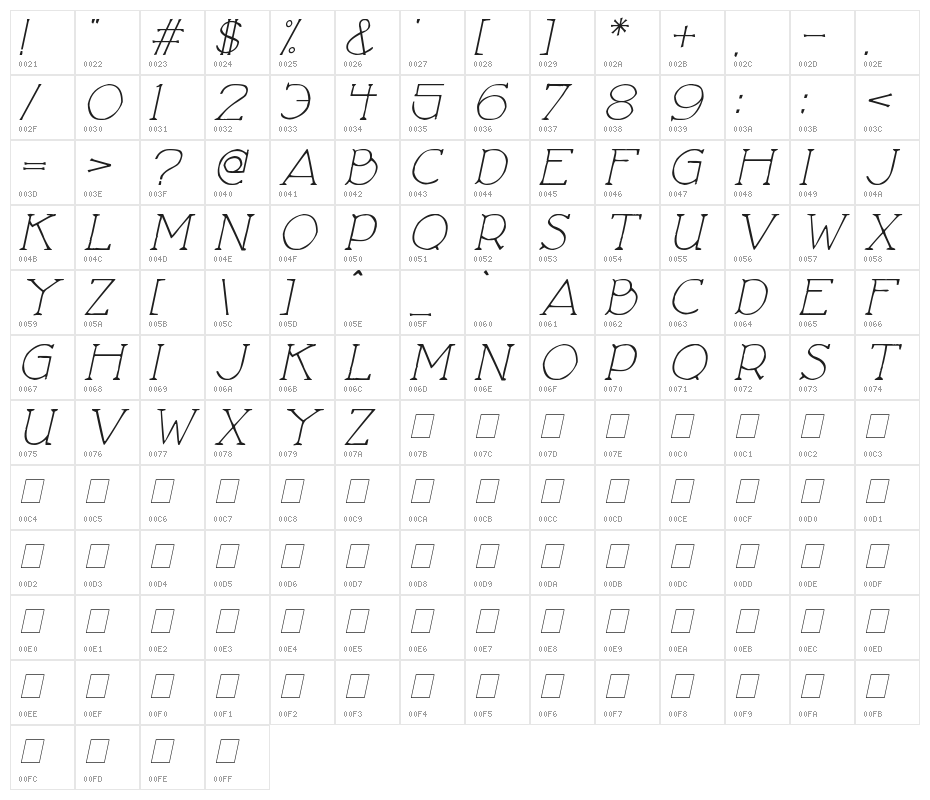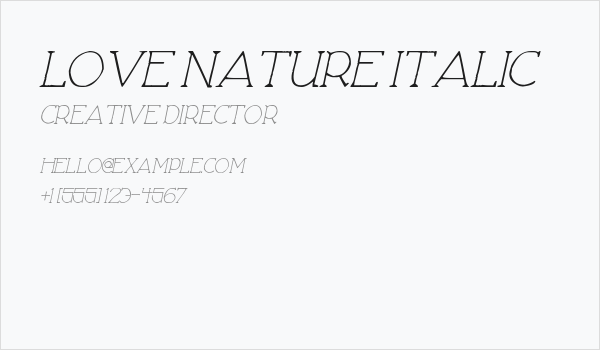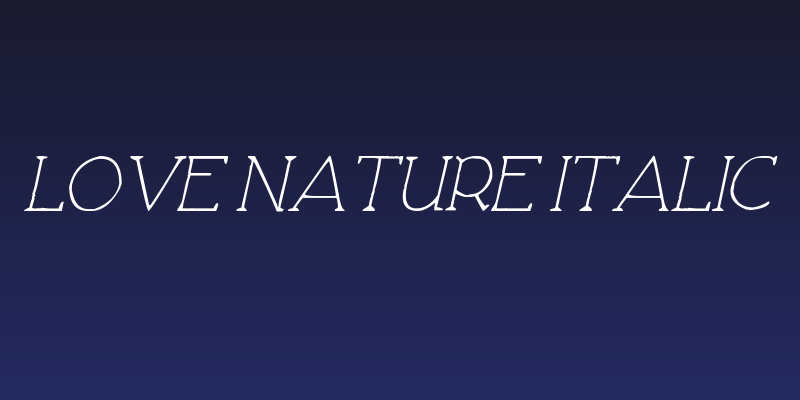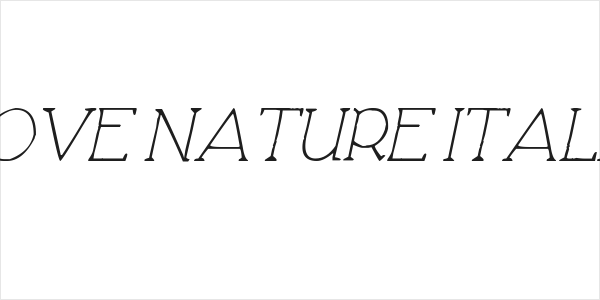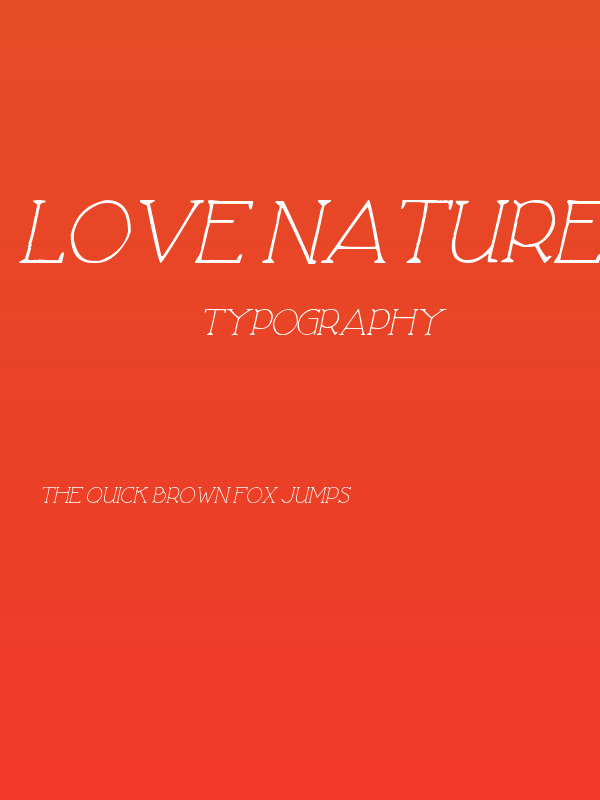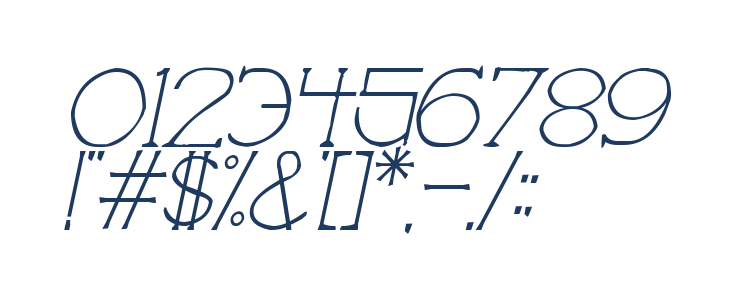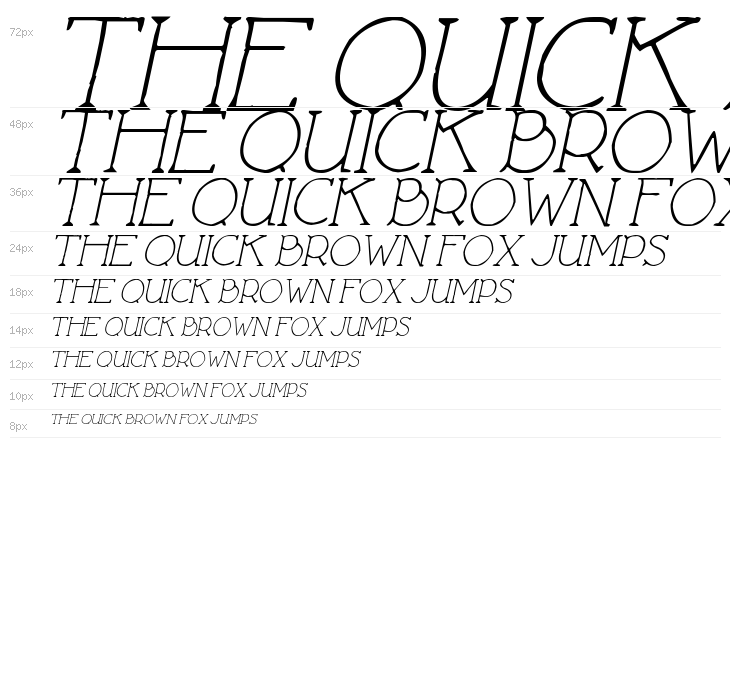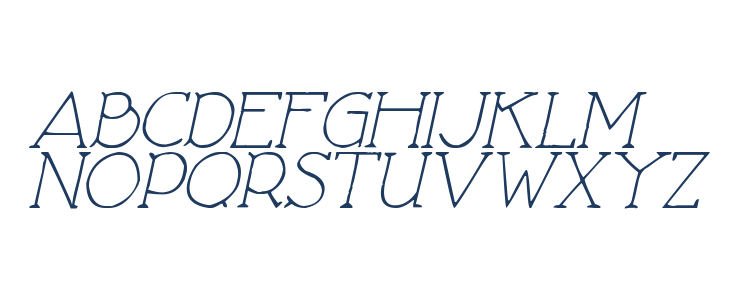
Love Nature Italic Font
Love Nature Italic Description
This font features an elegant and flowing italic style, characterized by its smooth curves and slightly slanted letters. The uppercase and lowercase letters maintain a consistent and harmonious design, with a delicate balance between thick and thin strokes. The numerals and special characters are crafted with the same attention to detail, ensuring a cohesive look across all glyphs. The font exudes a sense of sophistication and grace, making it suitable for projects that require a touch of elegance.
| Use Case | Headlines, Invitations, Branding |
| Proposed Projects | Ideal for wedding invitations, elegant branding, fashion magazines, and luxury product packaging. |